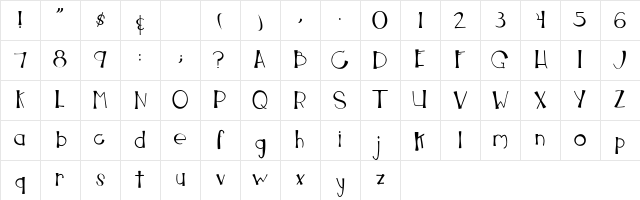
Complete pc Autumn glyph index. Displaying only characters natively supported by pc Autumn font.
pc Autumn is a composed and adaptable typeface that performs quietly and consistently across a wide range of design contexts.